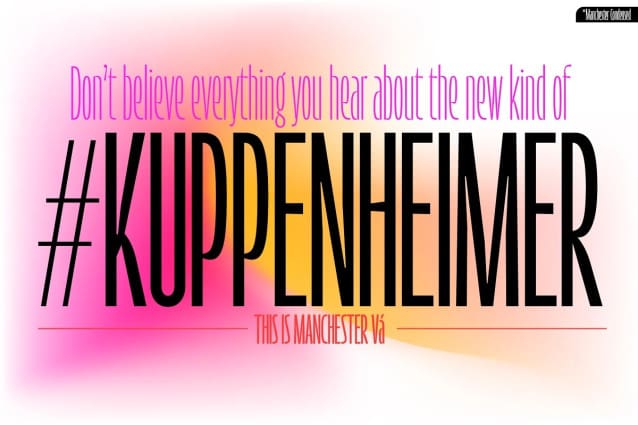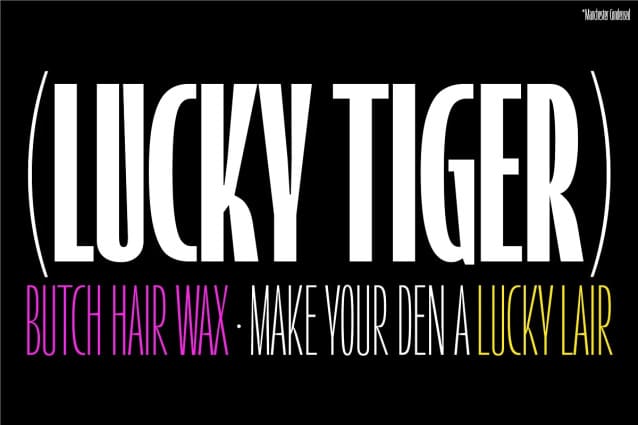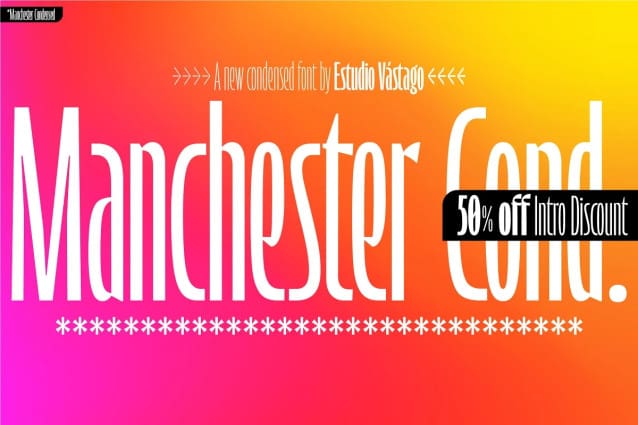
Manchester Condensed Font
Manchester Condensed Font is a typeface family designed by Vástago to be applied in large headlines in different formats, such as web, editorial or packaging. Just to mention a few.
Different Manchester weights enhance performance at large type sizes, providing hierarchy and imposing style with its elongated shapes. Its use in capital letters is remarkable and fits perfectly into very precise diagramming spaces.